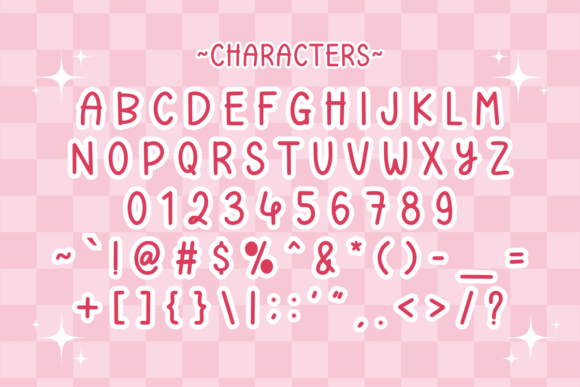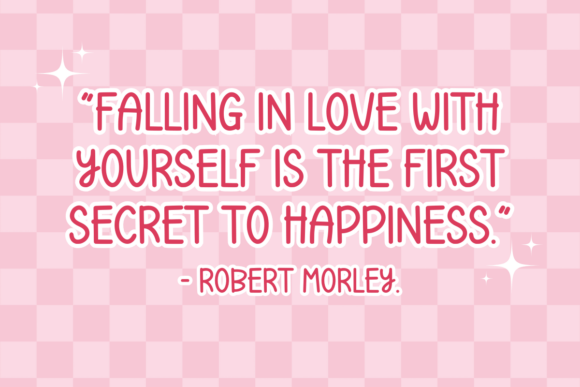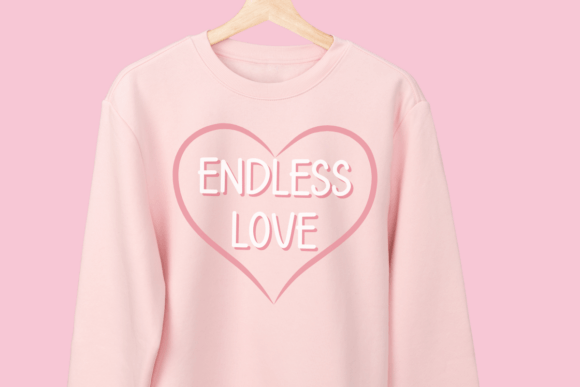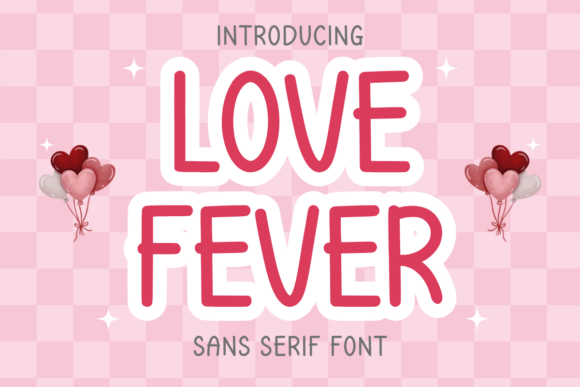
Introduction to Love Fever Font
Love Fever is a fun cute handwritten sans serif font.
Key Features of Love Fever Font
Why Choose Love Fever Font?
Love Fever Font offers exceptional quality and versatility, making it a valuable addition to your design toolkit. Whether you’re creating for personal projects or commercial use, Love Fever Font delivers professional results.